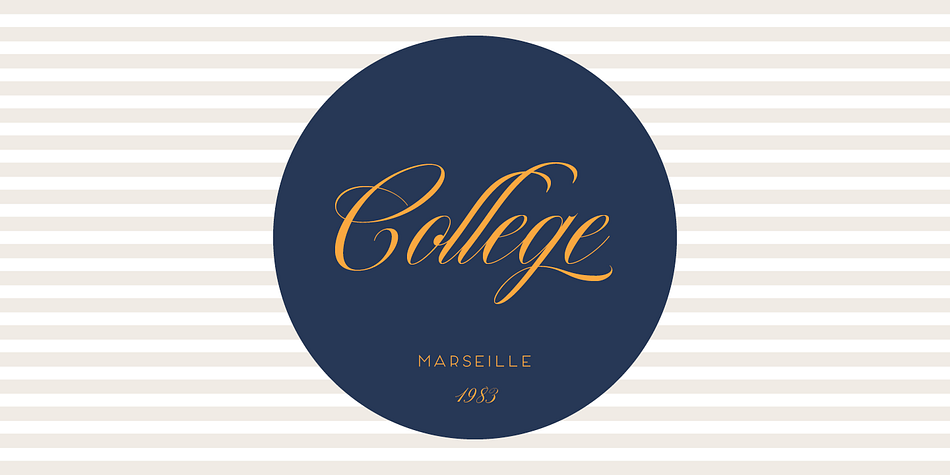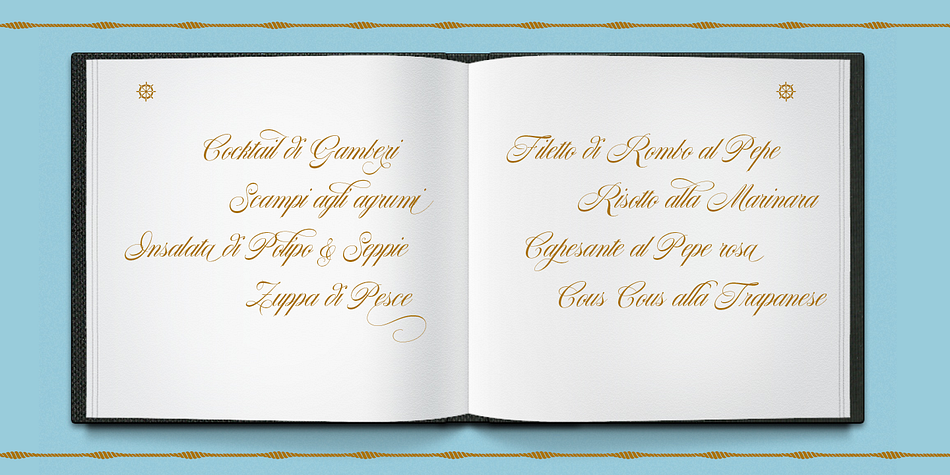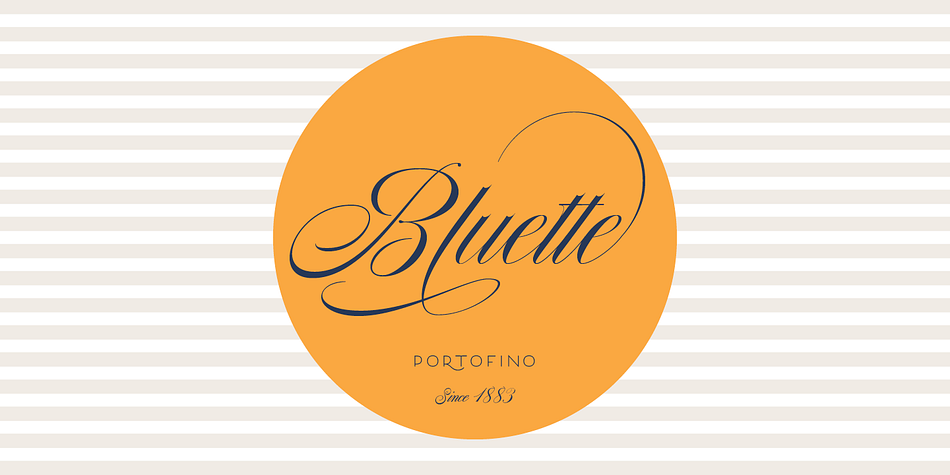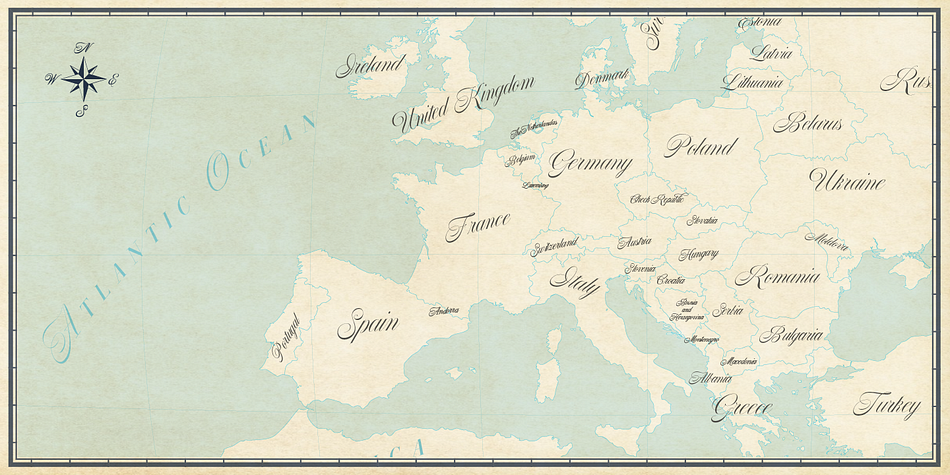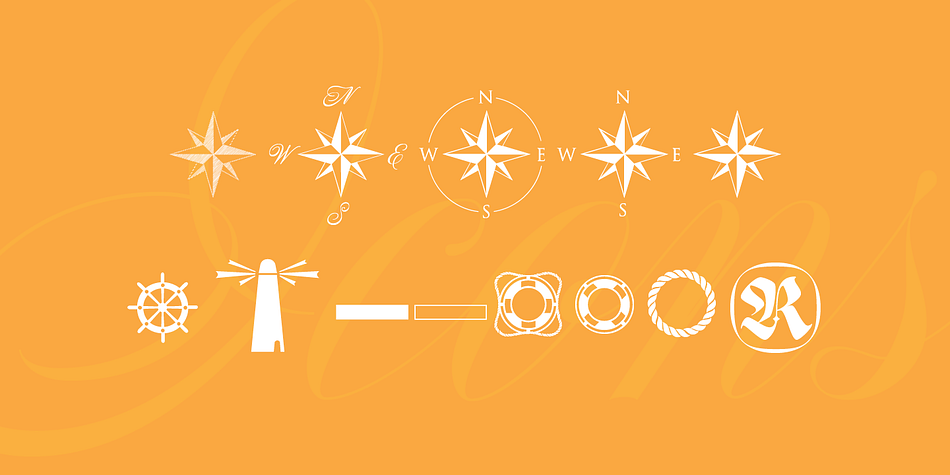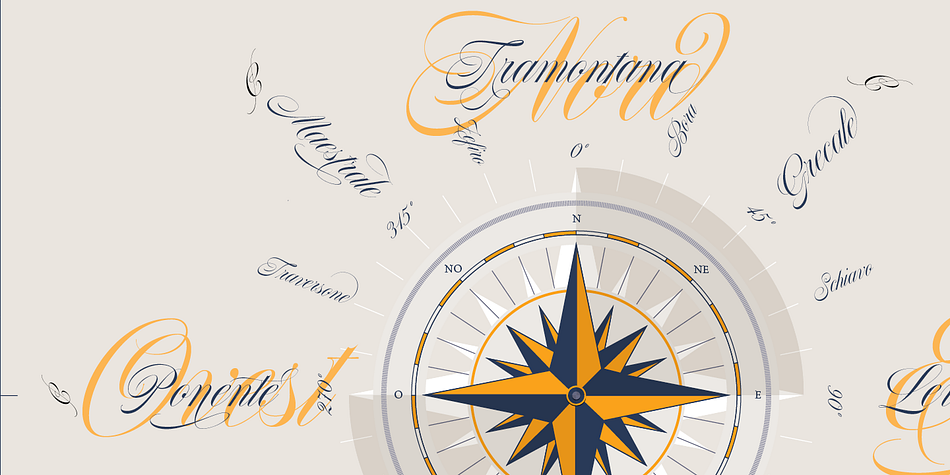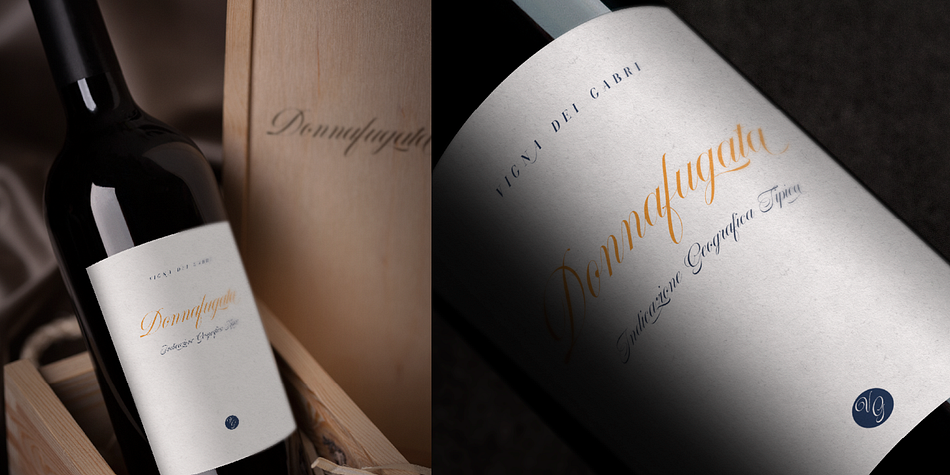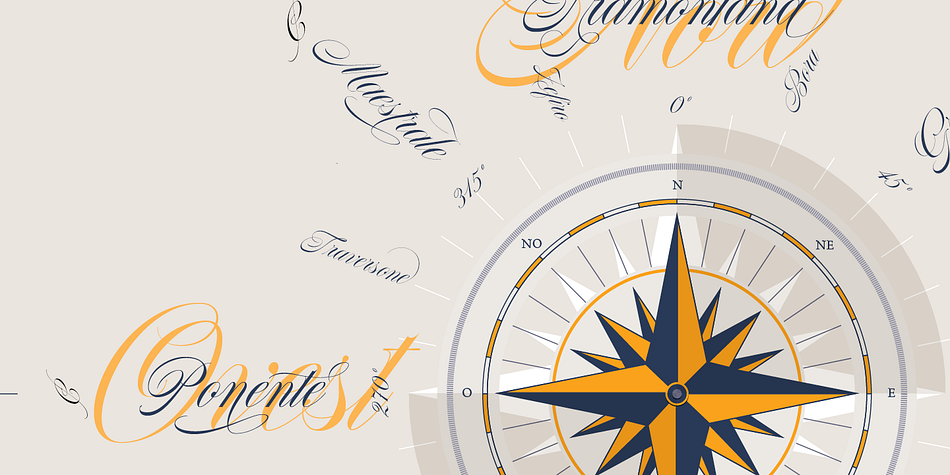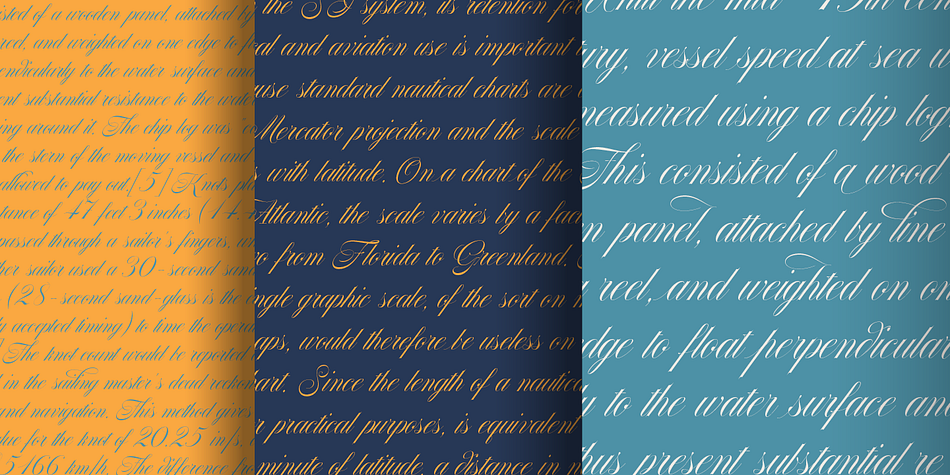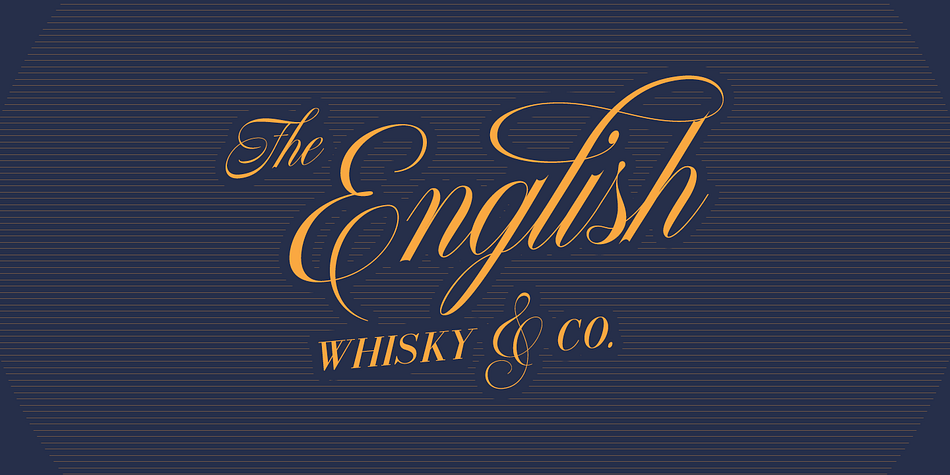
Nautica is a dingbat and script font family. This typeface has four styles and was published by Resistenza.es.
Nautica is a new script typeface based on Copperplate’s ductus. High in contrast, is a very original type with a strong character.
Ligature and swashes are more inspired by brush pen strokes. Nautica provides three weights and one set of useful icons and knots to improve you graphics.